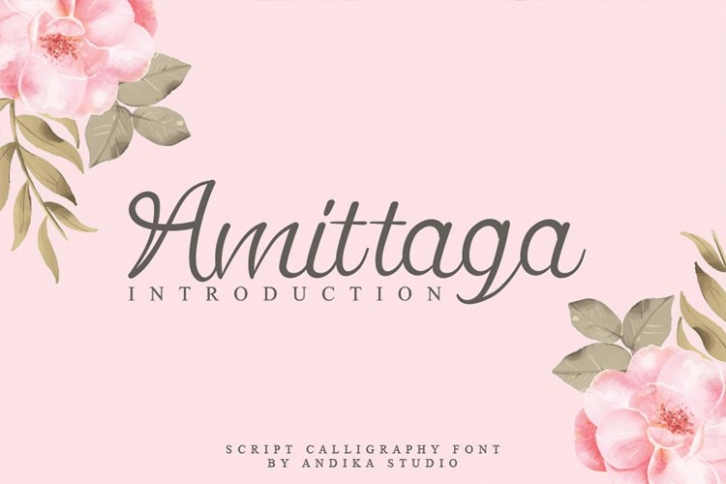
Amittaga is a great font that was designed by andikastudio1. Imagine the amount of combinations you can create using this font! The archive is 6.14 MB and it was released on May 11, 2020. Amittaga looks beautiful on wedding invitations, greeting cards, logos, posters, labels, t-shirt designs, logos, business cards and is perfect for use in ink or watercolor works, fashion, magazines, packaging and food menus, children's books and more!